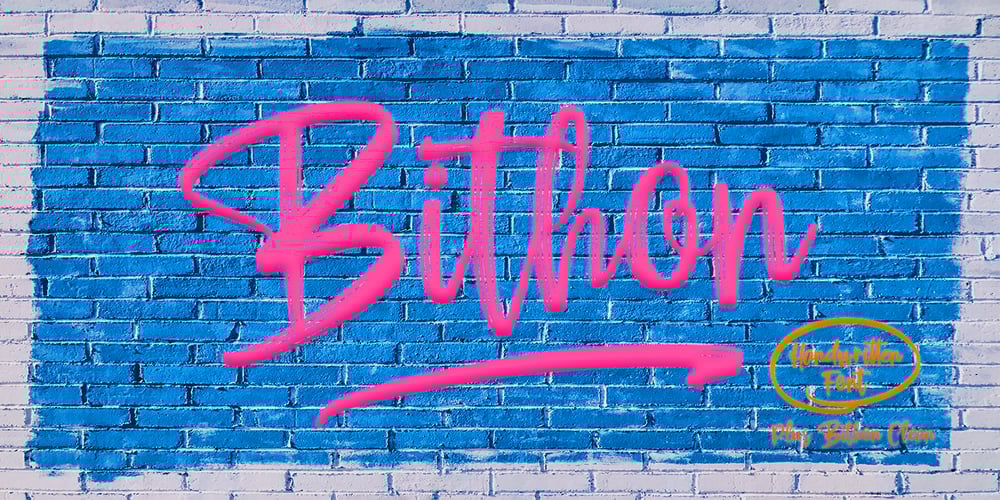
Bithon Brush Font Family was designed by Yur Lis and published by Stripes Studio. Bithon Brush contains 4 styles and family package options. Bithon Brush is a modern brush font, organic, dynamic and energetic sytle.Can used for various purposes. such as the title, signature, logo, correspondence, wedding invitations, letterhead, signage, labels, newsletters, posters, badges, etc.